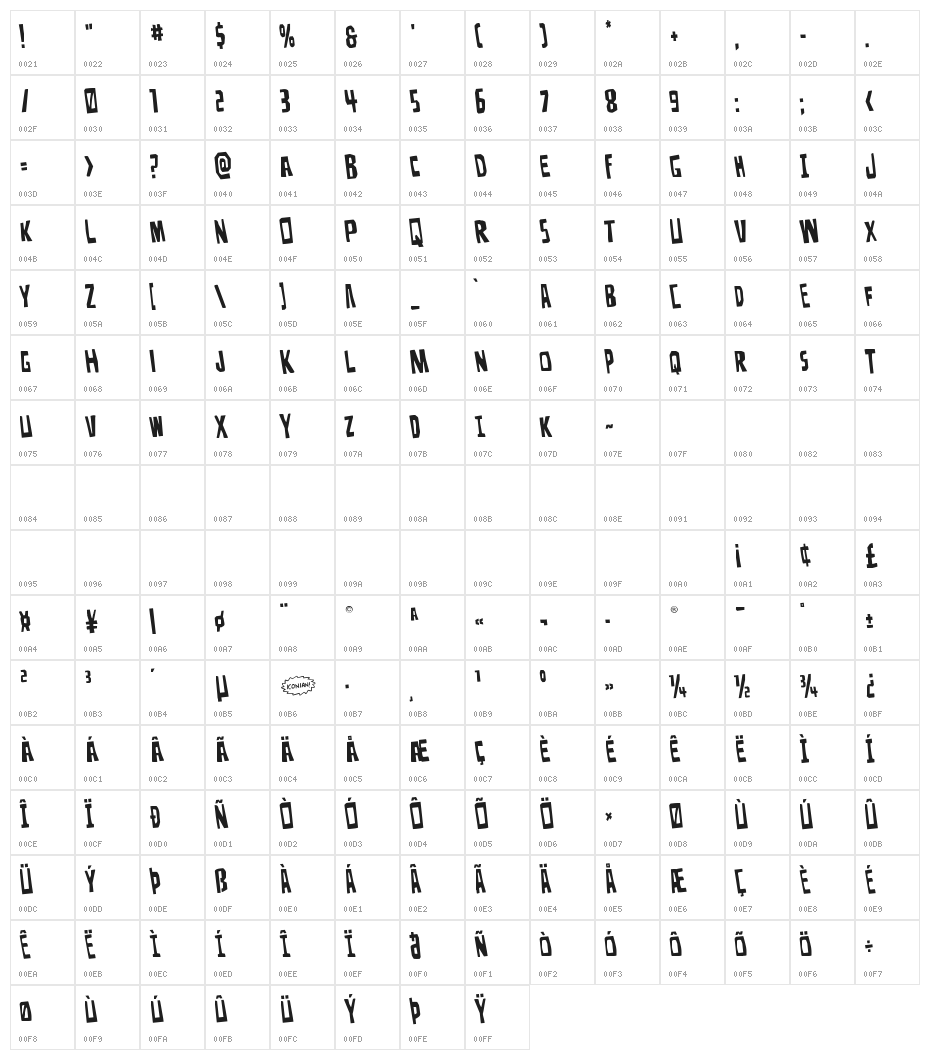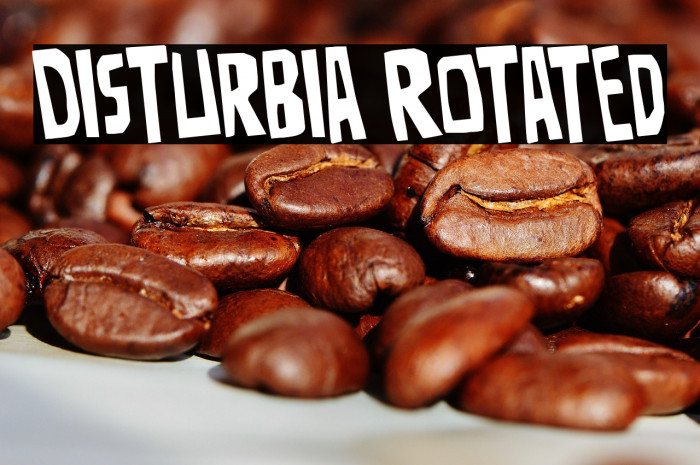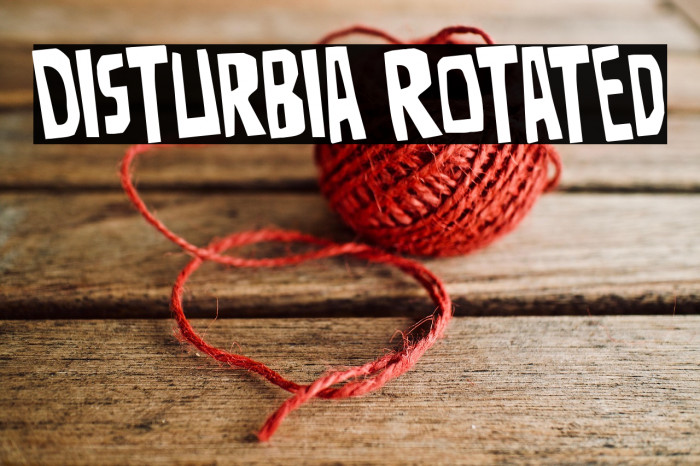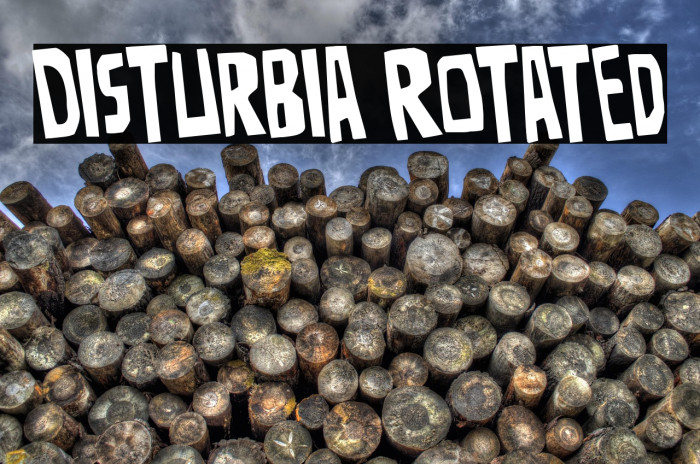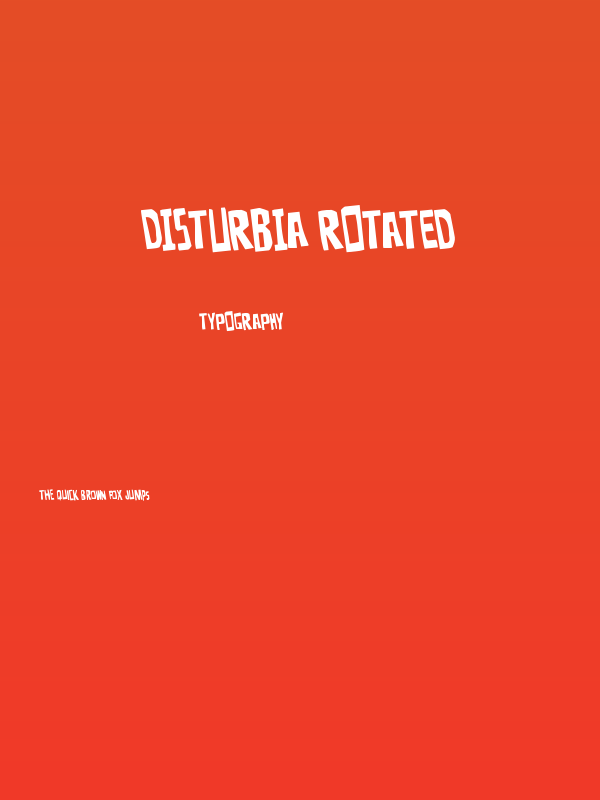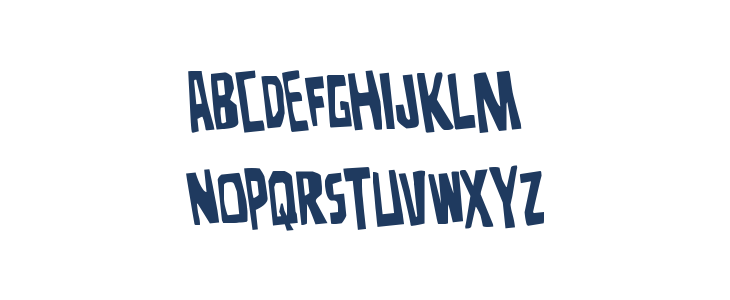
Disturbia Rotated Font
Disturbia Rotated Description
This font features a bold and striking design with a slightly distorted and irregular appearance, giving it a unique and edgy look. The characters are thick and angular, with a playful yet somewhat chaotic style. The uppercase and lowercase letters maintain a consistent weight, while the numbers and special characters follow the same bold and dynamic aesthetic. The overall impression is one of energy and movement, making it suitable for projects that require a standout and unconventional typeface.
| Overall Style | Modern, Edgy |
| Use Case | Headlines, Posters, Logos |
| Proposed Projects | Ideal for music album covers, movie posters, event flyers, and any design needing a bold, unconventional typeface. |